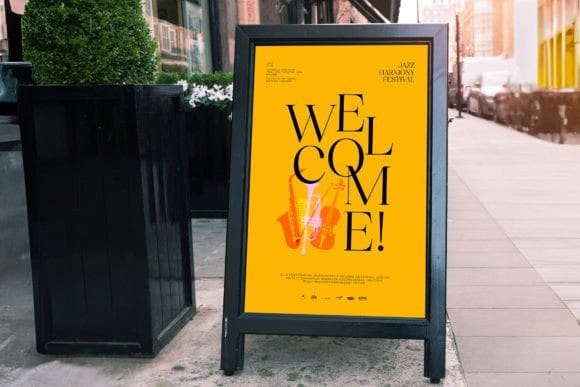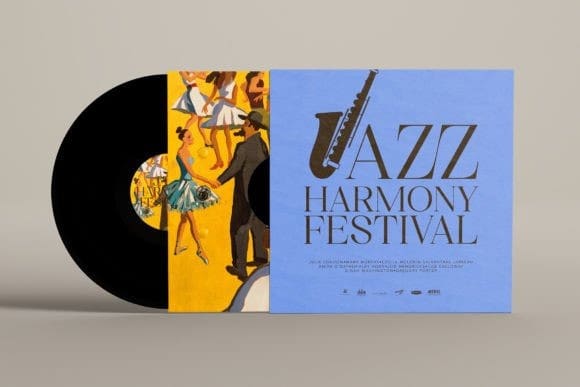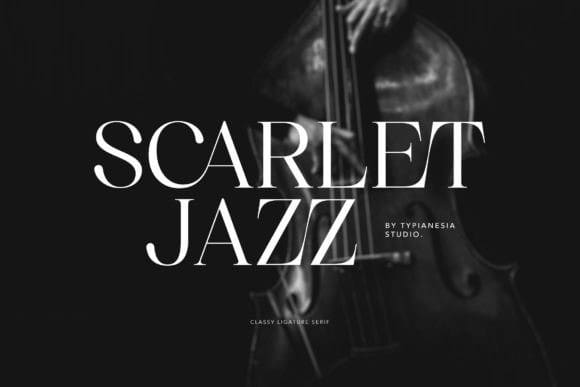
Scarlet Jazz Font
Scarlet Jazz Font, epitomizes sophistication with its sleek and stylish design. The font’s graceful letterforms exude a timeless charm, blending classic elegance with a contemporary flair. Ideal for adding a touch of refinement, ScarletJazz elevates any project with its subtle allure and impeccable aesthetics.